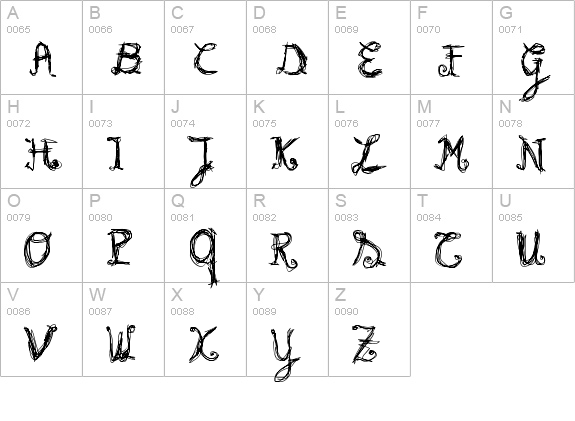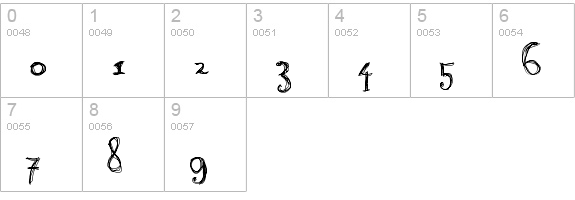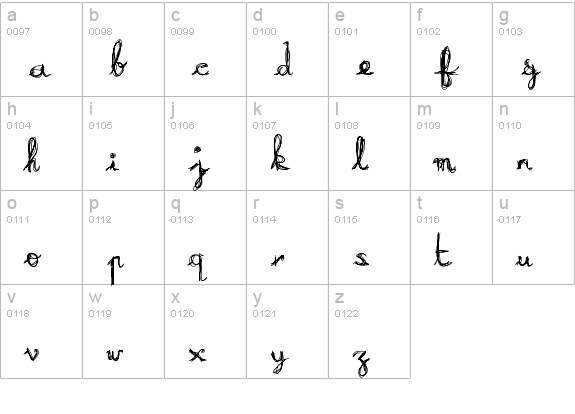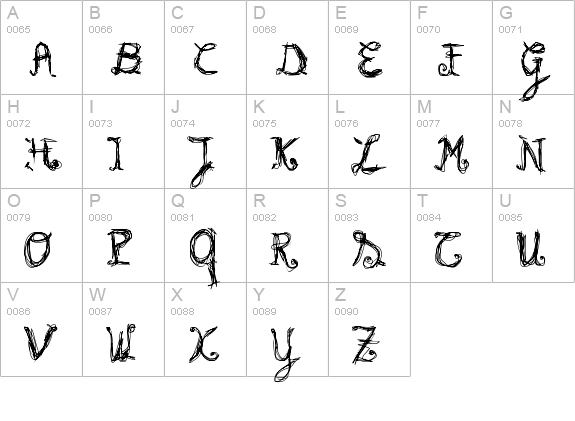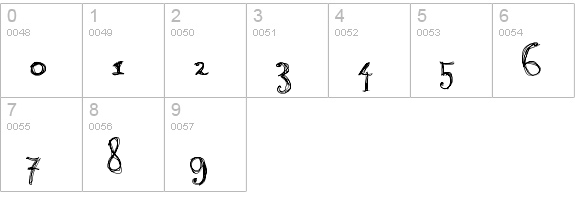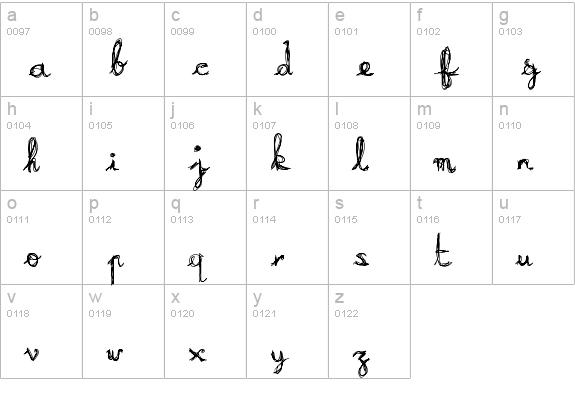
Burning Normal Font Details
Burning Normal is the standard, neutral variant in the Burning typeface family \xE2\x80\x94 well suited to general body text, paragraphs, and standard typographic work.
Burning Normal font is a striking display typeface that exudes a sense of edginess and intensity. Its sharp angles and fiery aesthetic make it perfect for projects that require a bold and dynamic look. This font is not just your average typeface - it's a powerful tool that can elevate your designs to new heights. What's even better is that Burning Normal font is completely free to download at FontsMarket.com. Yes, you read that right - you can get your hands on this unique and eye-catching font without spending a dime. Don't miss out on the opportunity to add this versatile typeface to your collection and unleash its fiery potential in your creative projects. Download Burning Normal font today and set your designs ablaze with its captivating style.